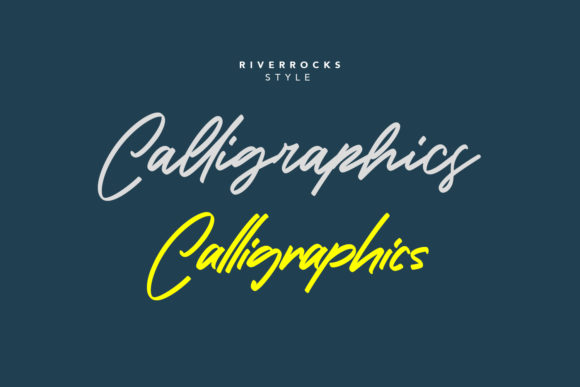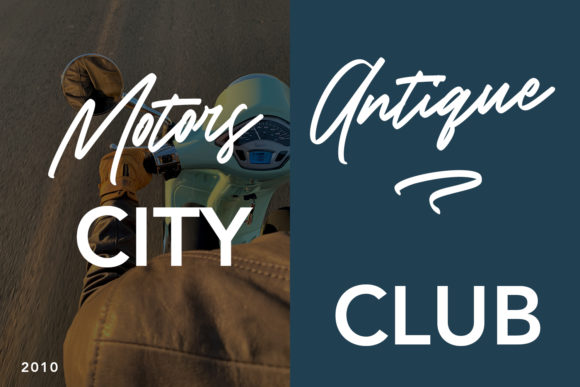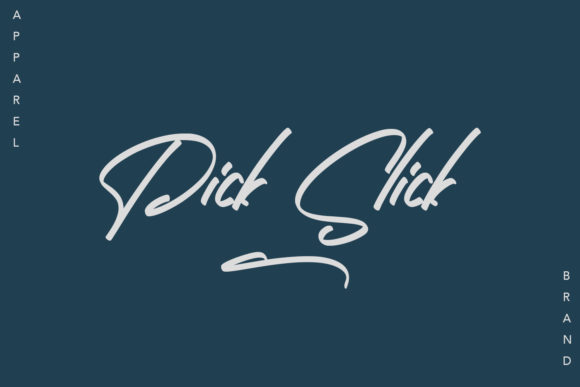
About River Rocks Font
River Rocks is a font that exudes flowing elegance, making it a perfect choice for a variety of design projects. Its flowing and handwritten style enhances your creations, adding a touch of grace that captivates the eye.
With its elegant touch, River Rocks brings a sense of sophistication and charm to your designs. Whether you’re working on social media graphics, quotes, greeting cards, logos, business cards, or any other project, this font elevates each creation with its effortless allure.
River Rocks’ handwritten essence adds a personal and authentic touch to your designs, making them feel refined and special. It’s like a gentle stream that infuses your creative ideas with a sense of elegance.
Incorporating River Rocks into your designs allows you to explore a wide range of creative possibilities. Its versatility serves as a canvas for your imagination, empowering you to create visually stunning and captivating designs.
Moreover, River Rocks’ timeless style ensures your designs stand out with a classic and captivating presence. Its unique charm sets your projects apart and makes them truly remarkable.
Fall in love with River Rocks’ flowing elegance as it transforms your ideas into spectacular designs that resonate with sophistication and allure.
In summary, River Rocks is more than just a font; it’s an exquisitely designed companion that enhances your creative ideas. Embrace its elegance and notice how it elevates your projects to new levels. With River Rocks, your designs become true expressions of grace and flowing beauty, leaving a lasting impact on all who encounter them. Let River Rocks be the font that adds a touch of magic to your designs, creating a world of endless possibilities and capturing the hearts of your audience.